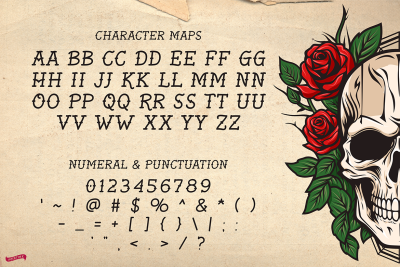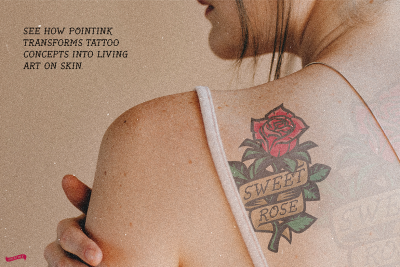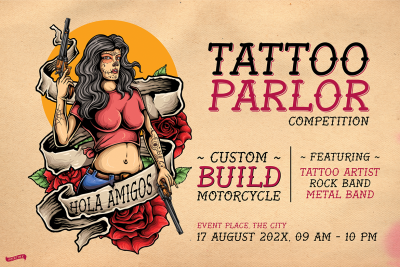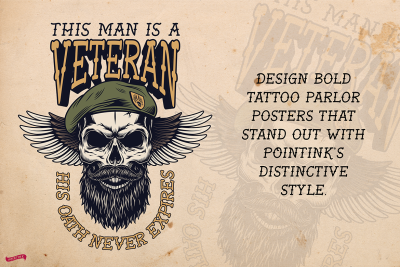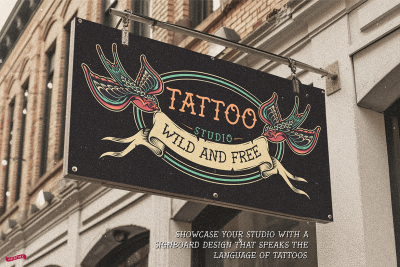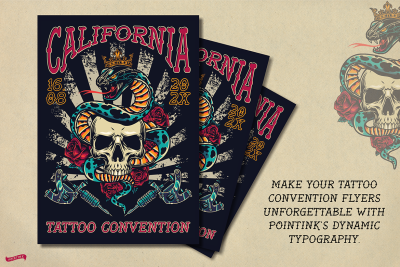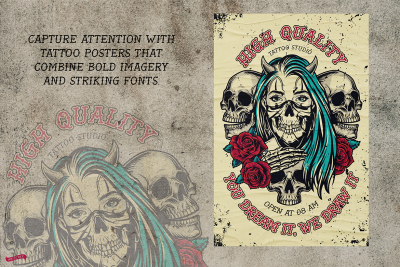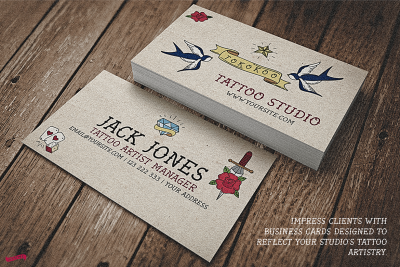
Tattoo Font Pointink is a striking typeface inspired by traditional tattoo artistry. It seamlessly combines bold strokes and sharp edges, creating a distinctive, eye-catching design. Furthermore, the font’s intricate details and handcrafted textures give it a unique and authentic appearance. Its precise design reflects the creativity and artistry often associated with tattoo culture.
This font is perfect for projects that require a bold visual impact, such as branding, logos, or product packaging. Moreover, its edgy yet elegant style works well for headlines, posters, and apparel. Despite its decorative look, the Tattoo Font Pointink maintains excellent readability, ensuring it performs well across both digital and print media. By blending tattoo-inspired aesthetics with functionality, this font offers versatility for various creative projects.
Tattoo Font Pointink Perfect For
Tattoo Font Pointink is ideal for tattoo artists, designers, and creatives across different industries. For tattoo artists, it provides a perfect solution for shop logos, promotional materials, or custom tattoo designs. Additionally, its pointed and detailed design complements the precision and artistic flair of tattoo work.
Branding professionals will also appreciate its impact for edgy or alternative brands. For instance, it works well for tattoo parlors, streetwear companies, or craft beverage labels. Furthermore, the bold and intricate details ensure a memorable impression on target audiences.
For graphic designers, this font is perfect for crafting posters, flyers, or album covers. Its sharp edges and striking details make it ideal for projects that need a rebellious or bold aesthetic. Additionally, marketers can rely on it to enhance themed event materials or campaigns, giving them an authentic, tattoo-inspired edge.
Content creators focusing on tattoos, alternative art, or lifestyle topics will also benefit greatly from this font. For example, it adds personality and style to branding, making content visually engaging and unique.
In summary, the Tattoo Font Pointink is a versatile and stylish typeface. It suits tattoo artists, branding experts, and designers who want to create bold and impactful visuals. With this font, your designs will stand out and leave a lasting impression on any audience.